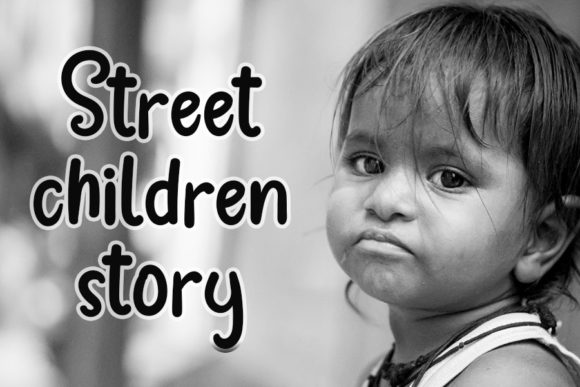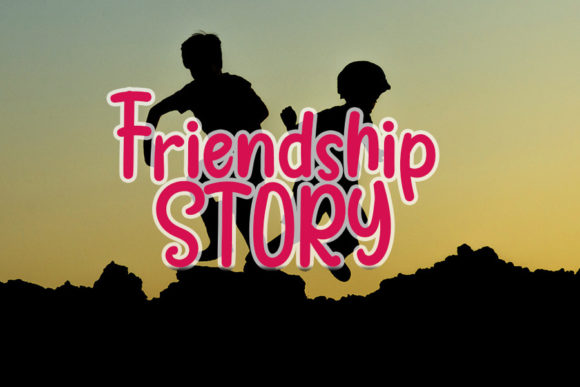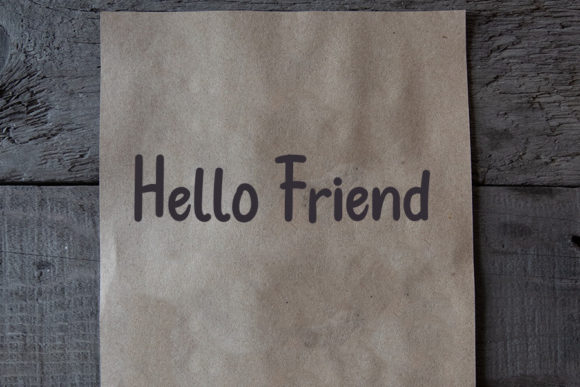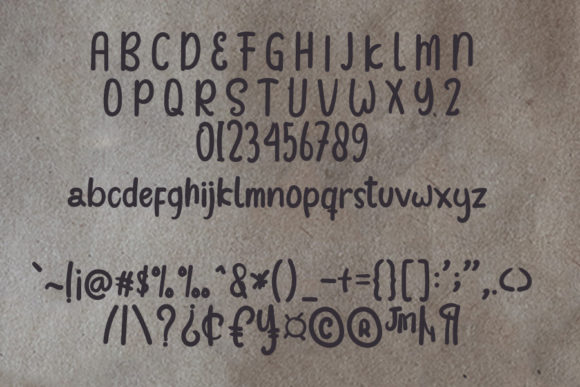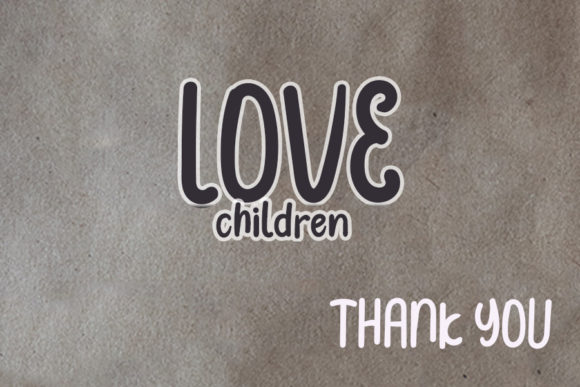
The Joy of Storytelling, One Font at a Time
As a child, there was nothing quite like snuggling up with a favorite book and getting lost in the magical world within its pages. The whimsical illustrations, the rhythmic cadence of the words, and the playful typography all combined to create an enchanting experience that has stayed with us long after we grew up.
For designers looking to capture that same sense of wonder in their own work, the Children Stories Font offers a delightful solution. This friendly handwritten font is carefully designed to evoke the classic charm of children’s literature, while still feeling fresh and contemporary. With its classy calligraphic influences, it’s the perfect choice for projects that require a touch of whimsy and playfulness.
Whether you’re creating a children’s book, a marketing campaign, or simply a social media post, the Children Stories Font is a valuable addition to any designer’s toolkit.
Children Stories Font Key Features
- Font Family: A custom-designed font family with 6 unique styles, including bold, italic, and regular variations.
- Unique Characteristics: The font features whimsical illustrations and playful letterforms, making it perfect for children’s books, educational materials, and other kid-friendly content.
Children Stories Font Review
I recently had the opportunity to work with the Children Stories Font, and I must say, it’s a unique and eye-catching typeface. ✨ The whimsical feel and playful characters make it perfect for children’s books, educational materials, and even branding for kids’ products. The font’s ability to evoke a sense of wonder and curiosity is undeniable.
However, there are a few limitations to consider. ⚠️ The font’s readability can be a concern at smaller font sizes, and it may not be the best choice for body text. Additionally, the font’s design can feel a bit over-the-top, which may not be suitable for all applications. Lastly, the font’s character set is somewhat limited, which can be a problem if you need to typeset text in non-English languages.
Overall, I think the Children Stories Font is a great choice for projects that require a sense of imagination and playfulness. While it may have some limitations, it’s a great addition to any designer’s toolkit.
- ✨ Whimsical and playful feel
- ✨ Perfect for children’s books and educational materials
- ⚠️ Limited readability at smaller font sizes
- ⚠️ May feel over-the-top in some applications
- ⚠️ Limited character set
The Children Stories Font is perfect for:
- Children’s book covers and illustrations.
- Marketing materials for kids’ products and services.
- Education materials and worksheets.
For best results, use the Children Stories Font with:
- Colorful illustrations and graphics.
- Whimsical and playful design elements.
- Simple and clear typography.